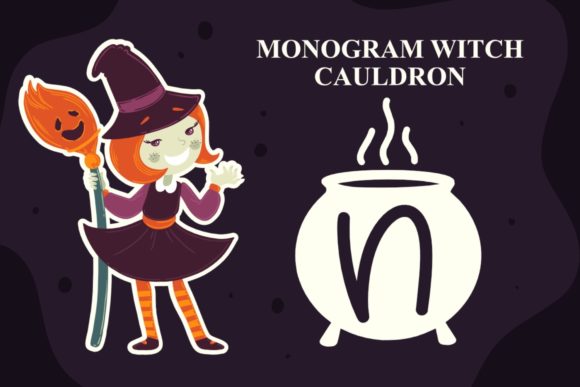
Welcome to Monogram Witch Cauldron Font, a mesmerizing decorative font that will cast a spell on all your creative projects!
Escape the ordinary and dive into a world of enchanting possibilities. This font is the ultimate choice for those seeking to conjure up an eerie yet elegant ambiance for Halloween or any whimsical occasion.
With Monogram Witch Cauldron Font, your designs will cackle with delight. Its intricate lines and playful curves dance across the page, evoking the magic of the season. Imagine invitations adorned with this enchanting font, promising a night of spooky fun. Or envision logos and branding that exude a haunting charm, leaving an unforgettable impression.
But the allure of Monogram Witch Cauldron Font goes beyond its Halloween appeal. Its versatility extends to any project that calls for a touch of the extraordinary. Let your imagination run wild as you create eye-catching posters, enchanting social media graphics, or simply add a touch of whimsy to your crafting endeavors.
The possibilities are limitless, and the magic is in your hands. Unleash the power of Monogram Witch Cauldron Font and let your creativity take flight. It's the perfect font to add a dash of enchantment to your designs and make your Halloween or any occasion truly unforgettable!